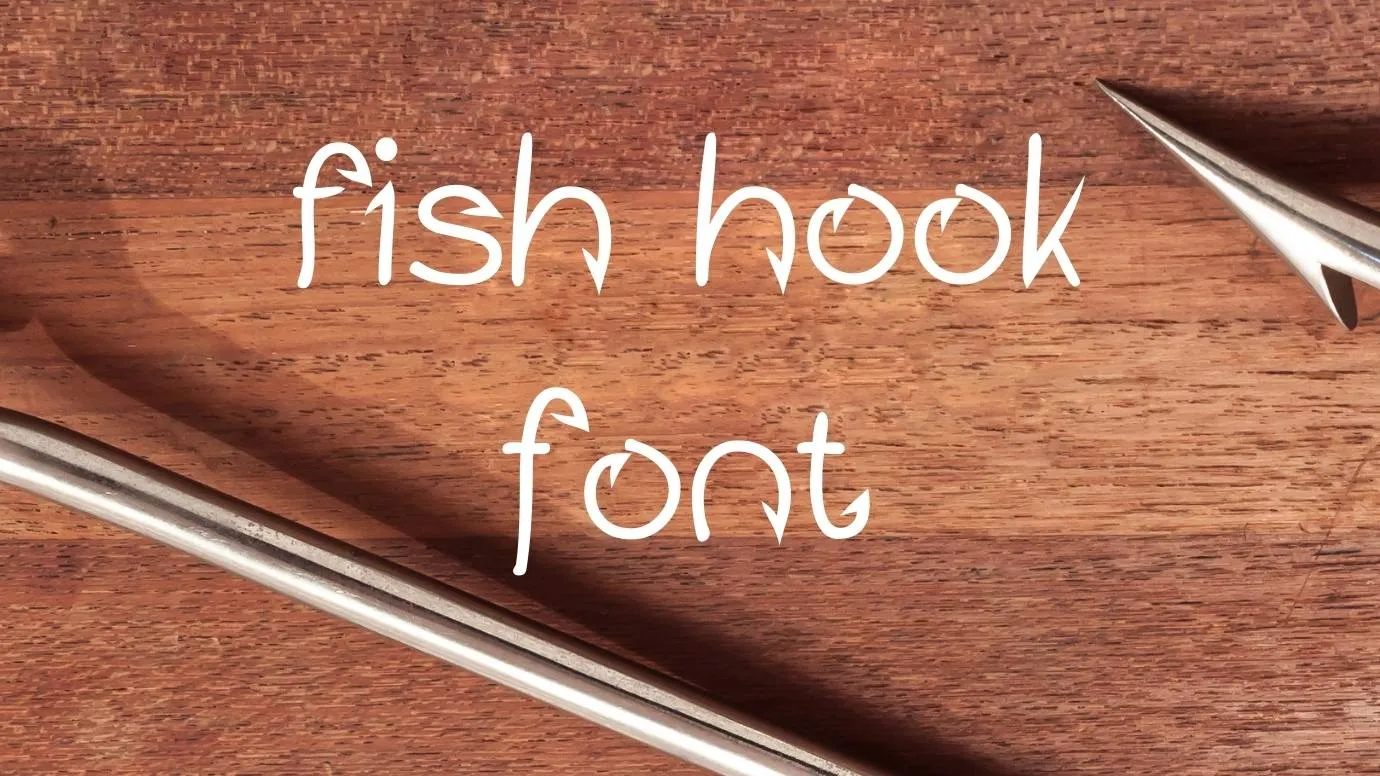
Fishhook belongs to the fancy type font. It is a very famous and popular typeface till it is released. This cozy font is mainly used for Printing designs and Signage. It is available in various unique styles.
Fishhook Font
NameFishhook Font
DesignerRobert Schenk